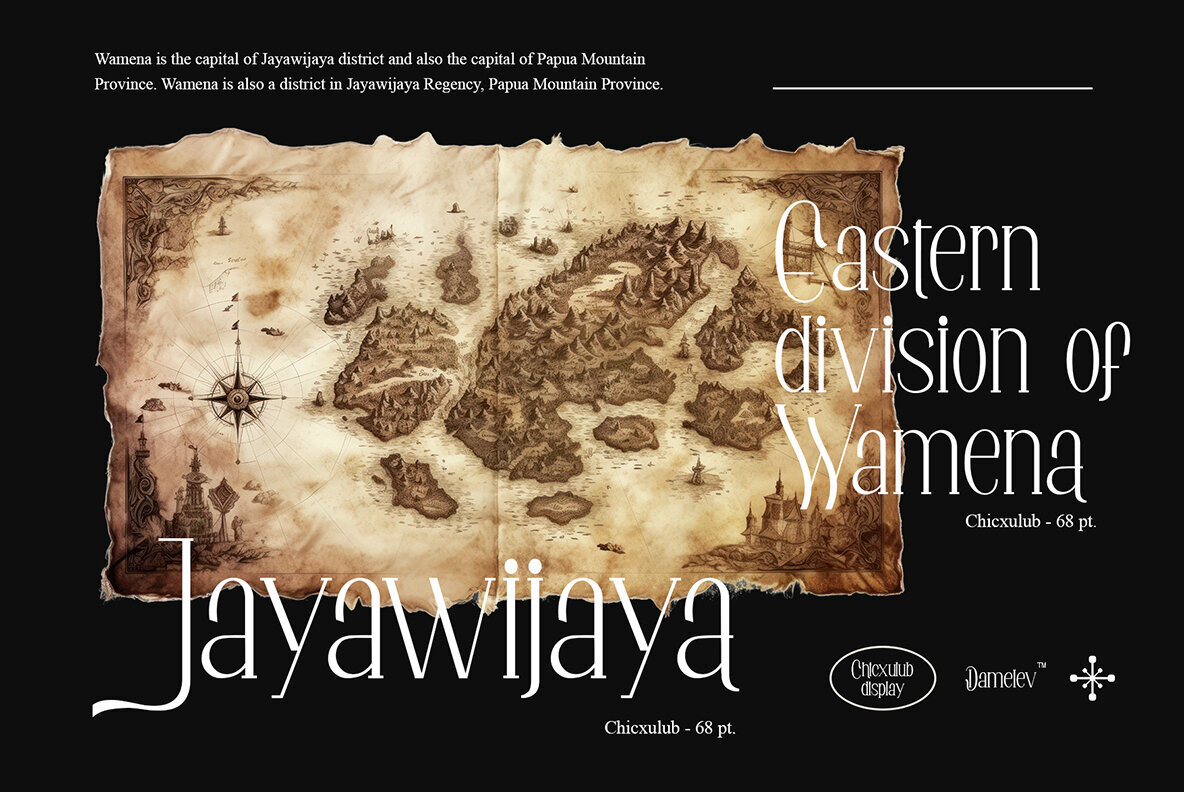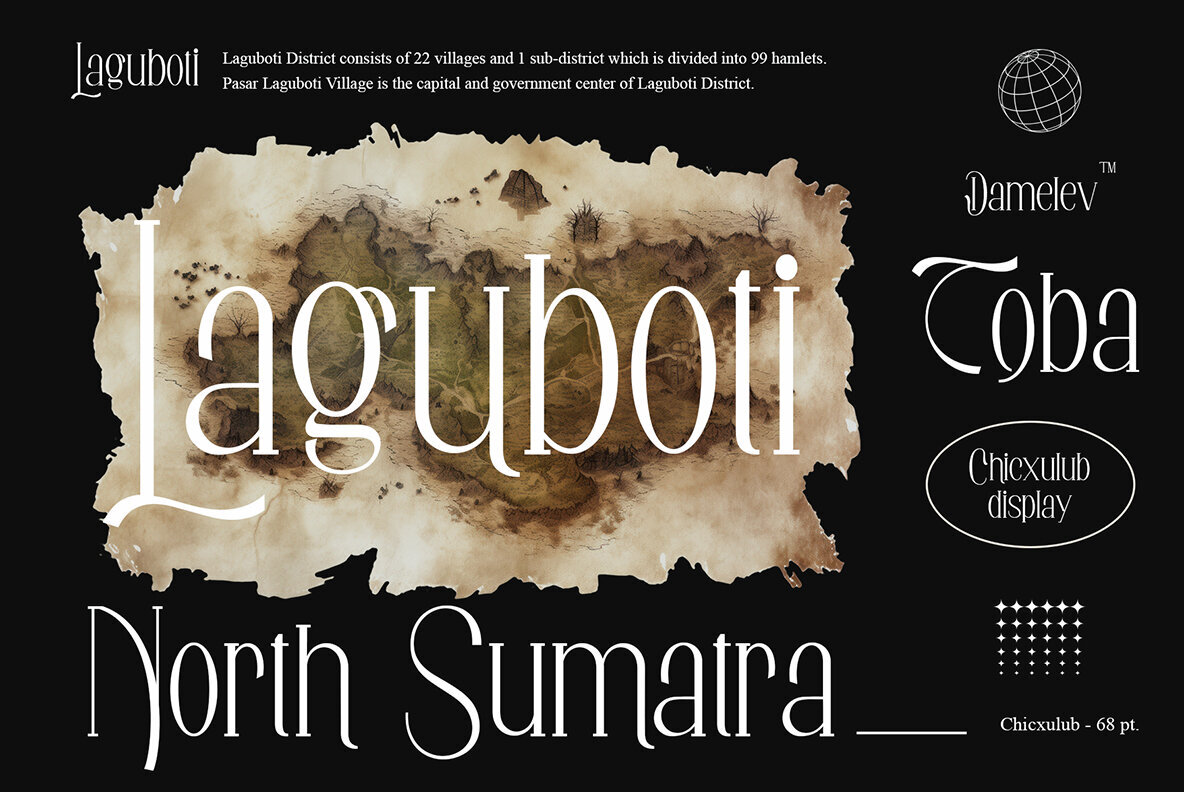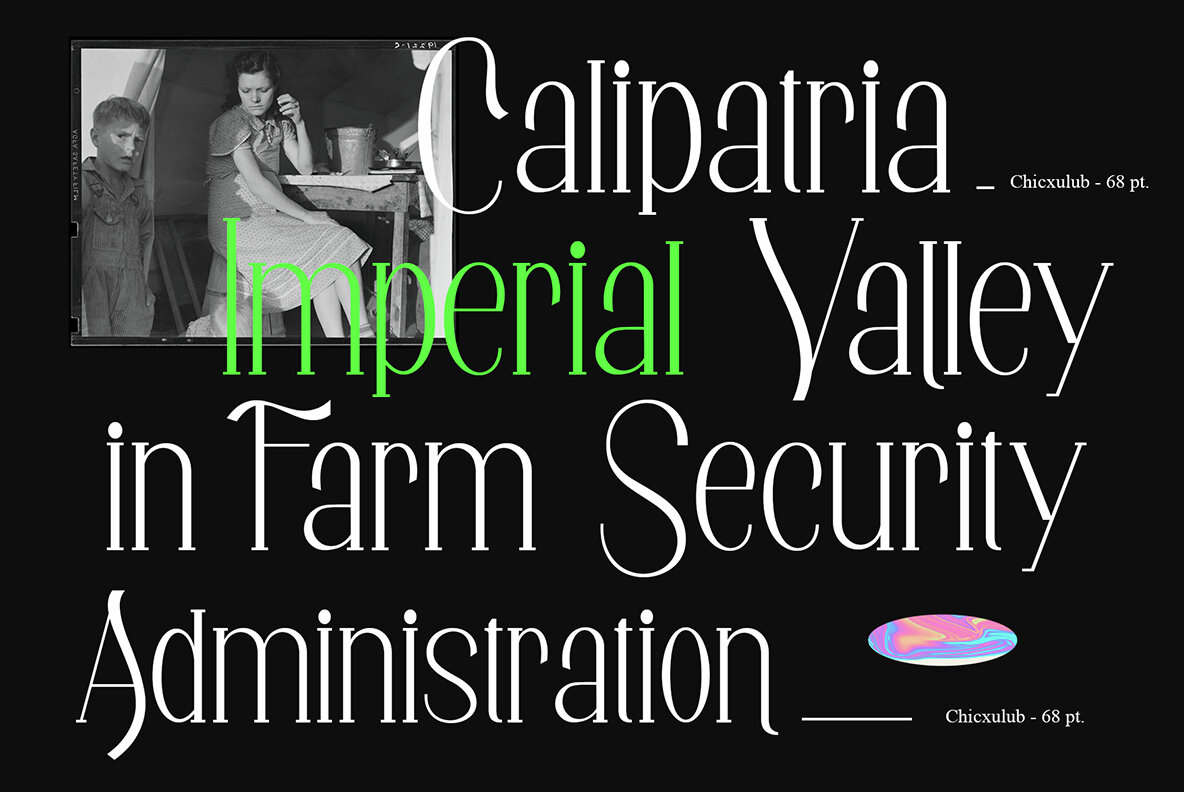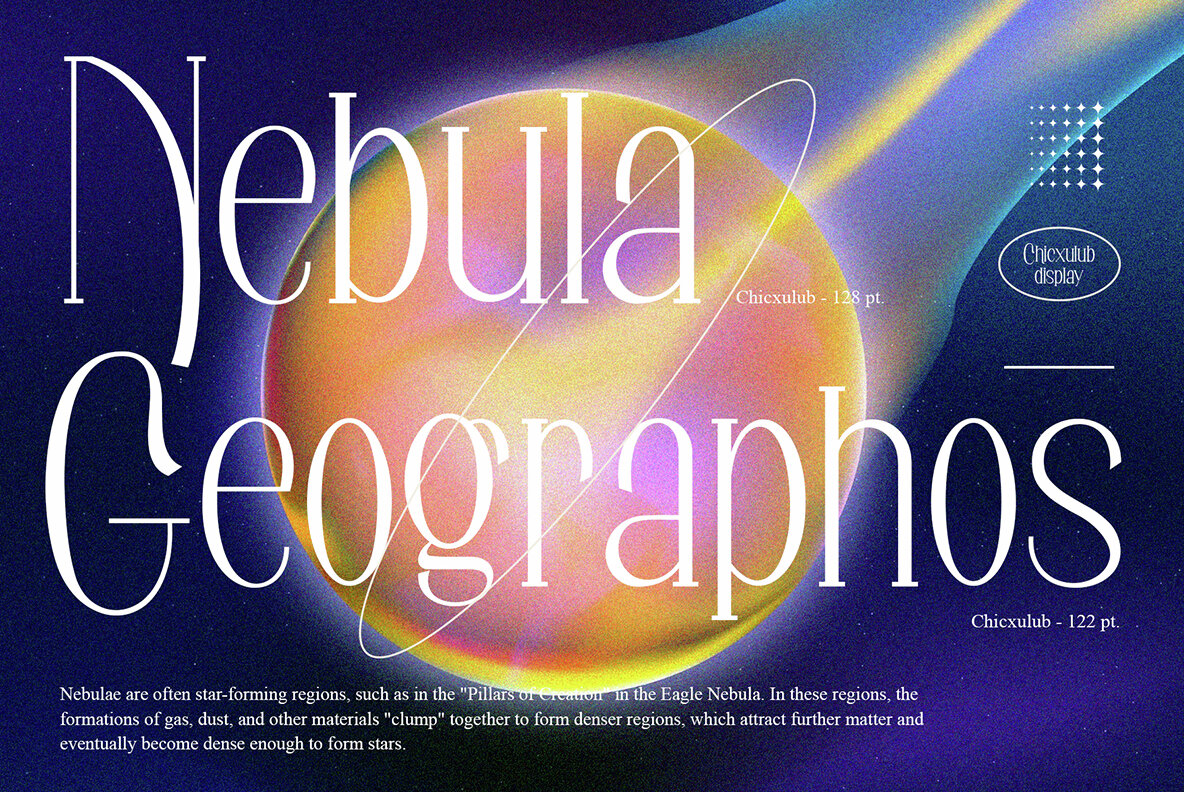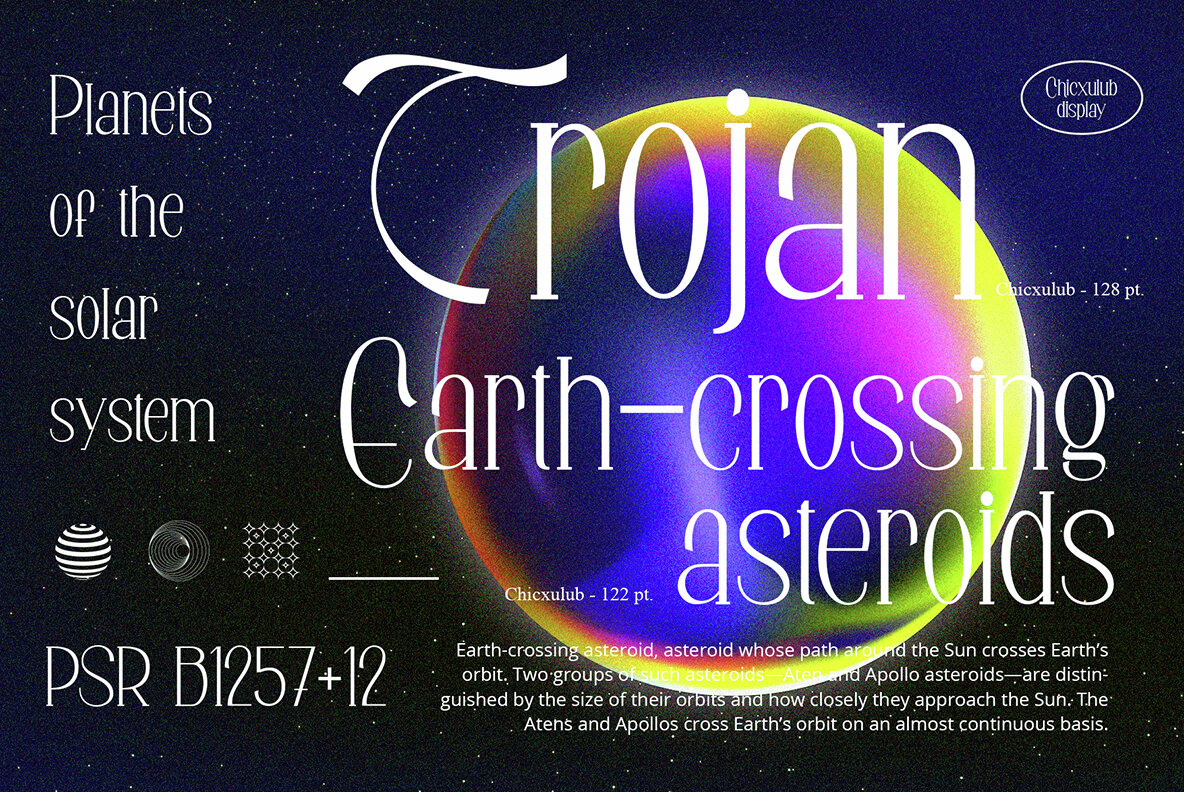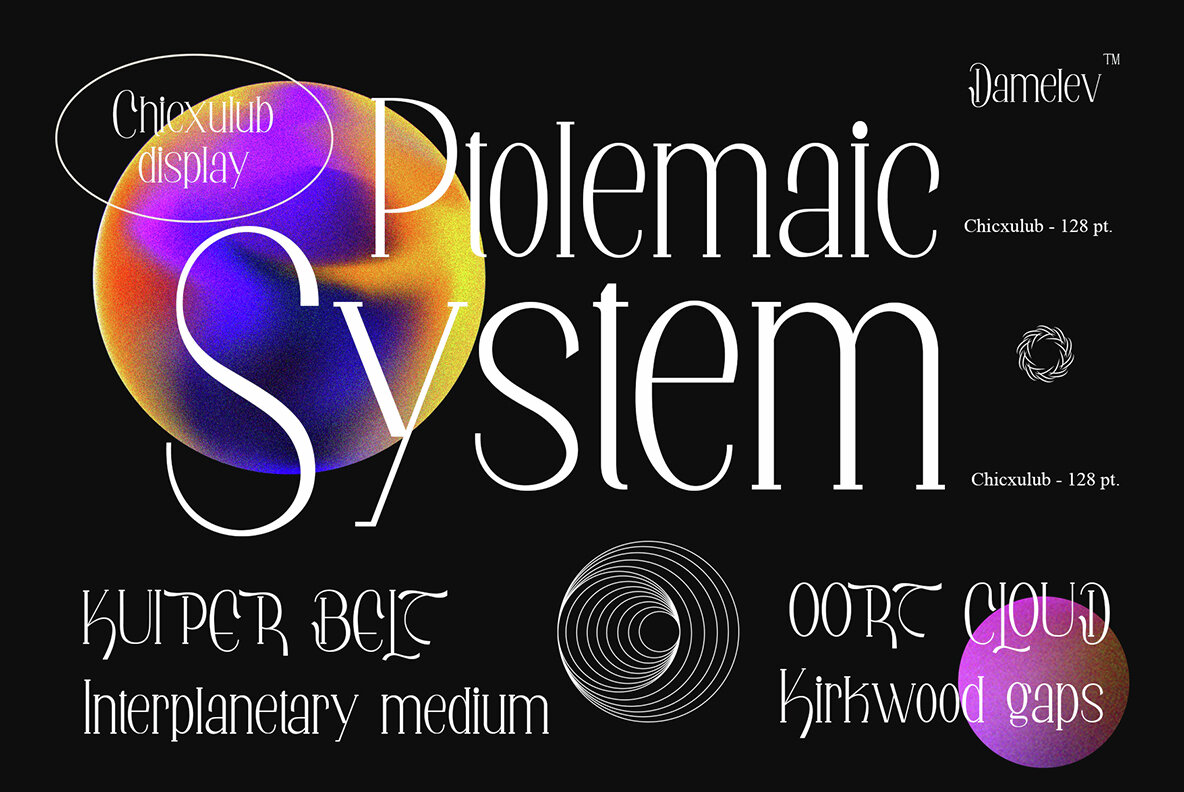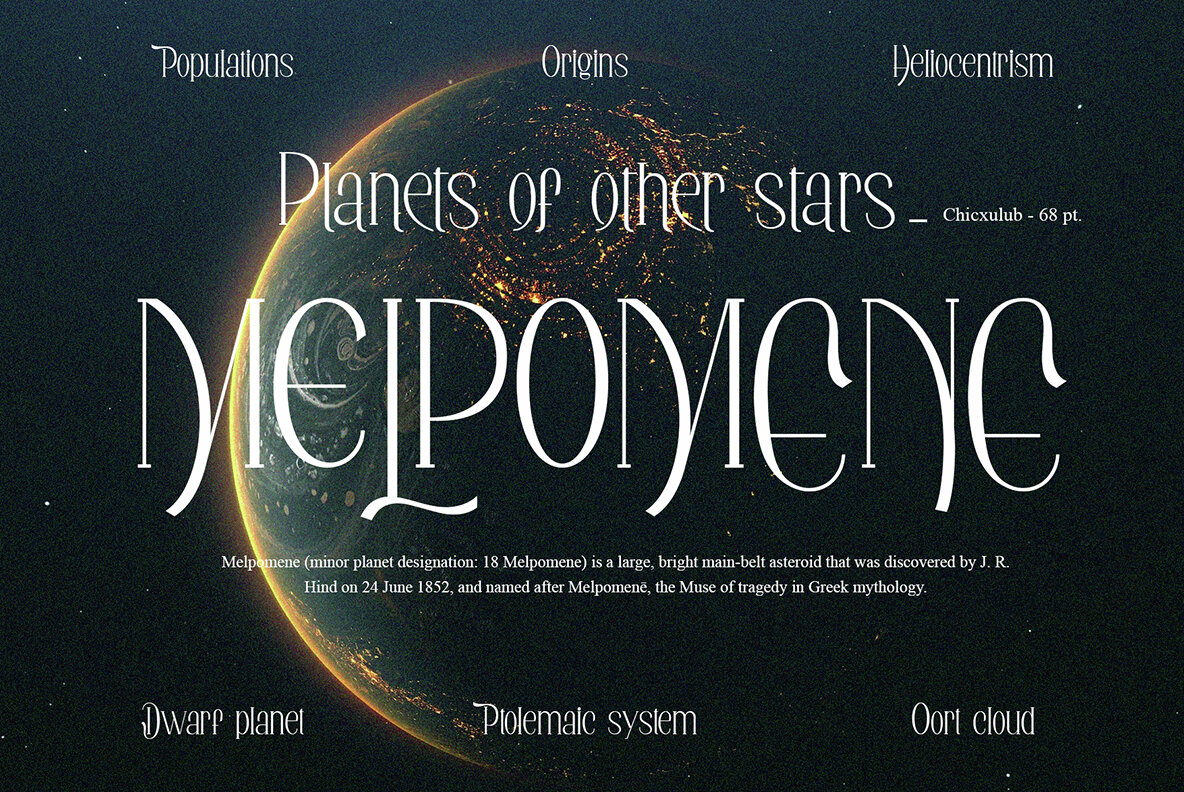
Chicxulub Font
Chicxulub Regular
Chicxulub Display offers a sophisticated blend of delicate serifs and robust stems that exude elegance and luxury. Rooted in classic Roman proportions, this typeface captures a timeless, antique charm suitable for various design needs. Whether you're setting body text or creating striking titles and headlines, Chicxulub Display delivers a versatile and polished look.
This font comes with an extensive selection of alternative glyphs, enhancing its adaptability across different projects. Its multilingual support ensures seamless usage in diverse languages, making it a valuable tool for global design applications. Overall, Chicxulub Display is a refined choice for designers seeking both elegance and functionality in their typographic endeavors.